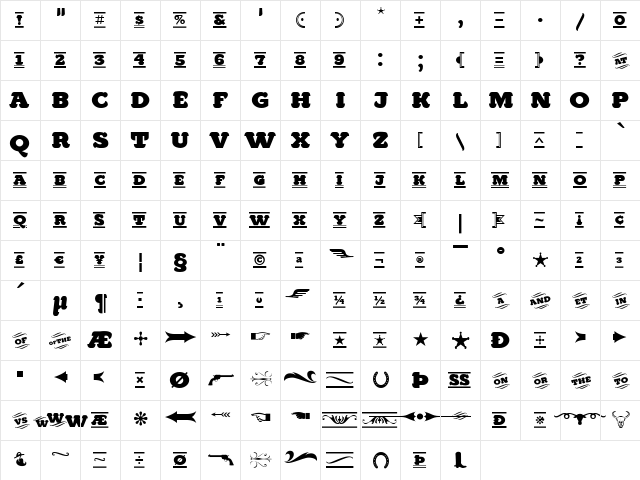
ManifestDestiny Extras Regular
| Foundry | Jack Usine, SMeltery Fonts |
| Designer | Jack Usine |
Design Context for ManifestDestiny Extras Typeface
ManifestDestiny Extras is a composed and adaptable typeface that performs quietly and consistently across a wide range of design contexts.